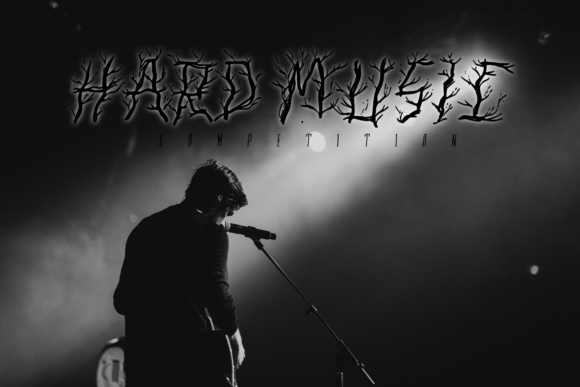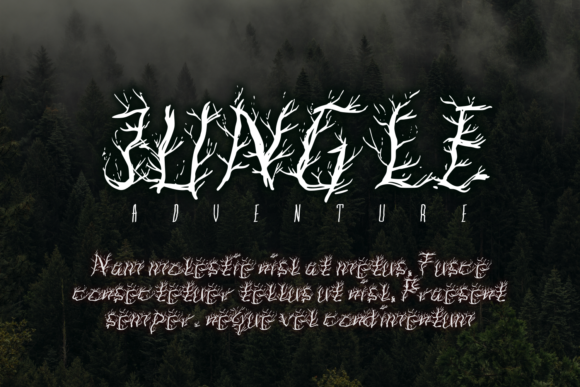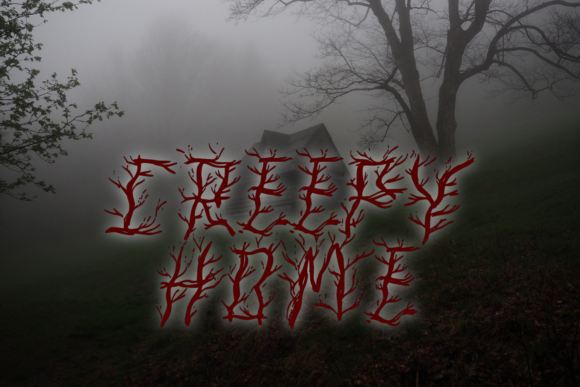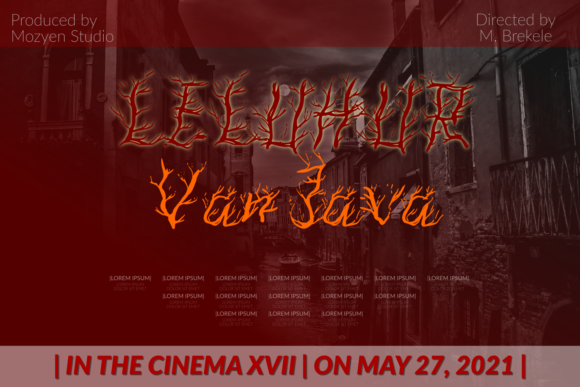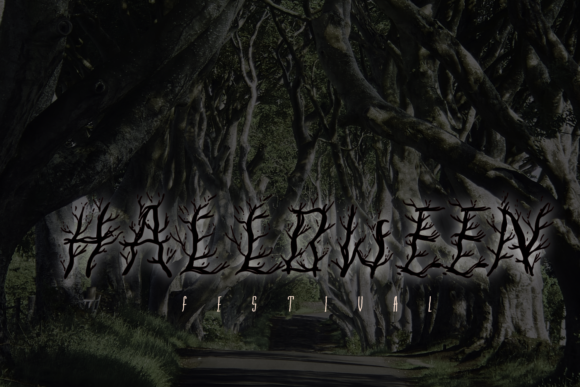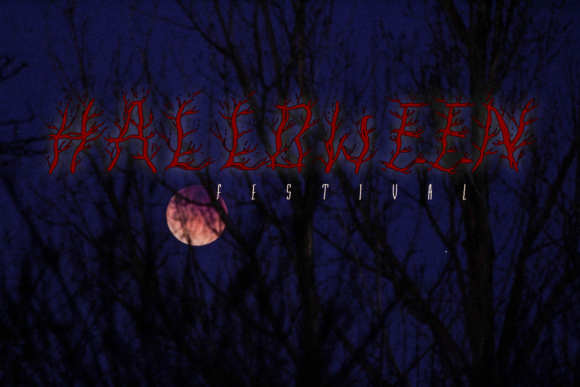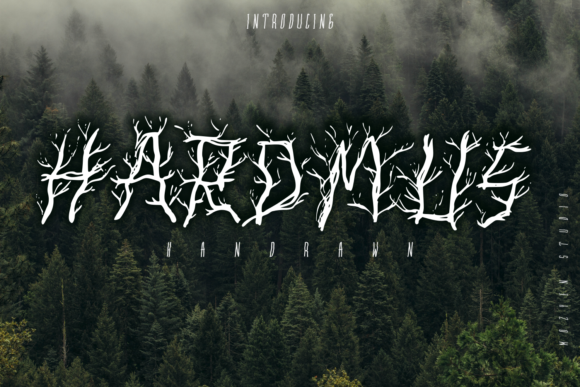
Introducing Hardmus Font: Unleash Your Creativity with this Aggressive Display Font
Are you tired of using the same old fonts for your designs? Look no further! Hardmus Font is here to revolutionize your creative projects with its unique, brushed, and aggressive style. This cool display font is perfect for designers and crafters who want to add a touch of edginess to their work. In this article, we’ll dive into the features and benefits of Hardmus Font, and explore its endless possibilities for your designs.
What is Hardmus Font?
Hardmus Font is a display font designed to make a statement. Its brushed and aggressive texture gives it a raw, unfinished look that’s perfect for creating bold and eye-catching designs. Whether you’re working on a poster, flyer, or print project, Hardmus Font is sure to grab attention and leave a lasting impression.
Key Features of Hardmus Font
- Unique Brushed Texture: Hardmus Font features a distinctive brushed texture that adds a touch of grit and attitude to your designs.
- Aggressive Style: This font is not for the faint of heart! Its aggressive style is perfect for designers who want to create bold and daring designs.
- High-Quality Design: Hardmus Font is designed with precision and attention to detail, ensuring that it looks stunning in any design.
- Versatile: Whether you’re working on a poster, flyer, or print project, Hardmus Font is versatile enough to adapt to any design style.
Benefits of Using Hardmus Font
So, why should you choose Hardmus Font for your designs? Here are just a few benefits of using this amazing font:
- Adds Edginess to Your Designs: Hardmus Font is perfect for designers who want to add a touch of edginess to their work.
- Grabs Attention: The bold and aggressive style of Hardmus Font is sure to grab attention and leave a lasting impression.
- Increases Creativity: With Hardmus Font, you’ll have endless possibilities for your designs. Experiment with different styles, colors, and textures to create something truly unique.
Endless Possibilities with Hardmus Font
So, what can you create with Hardmus Font? The possibilities are endless! Here are a few ideas to get you started:
- Posters and Flyers: Use Hardmus Font to create bold and eye-catching posters and flyers that grab attention.
- Print Projects: Add a touch of edginess to your print projects, such as brochures, business cards, and packaging.
- Logos and Branding: Use Hardmus Font to create a bold and memorable logo or brand identity.
- Social Media Graphics: Create stunning social media graphics that stand out from the crowd with Hardmus Font.
In conclusion, Hardmus Font is a game-changer for designers and crafters who want to add a touch of edginess to their work. With its unique brushed texture and aggressive style, this font is perfect for creating bold and eye-catching designs. Whether you’re working on a poster, flyer, or print project, Hardmus Font is sure to unleash your creativity and take your designs to the next level. So, what are you waiting for? Download Hardmus Font today and explore its endless possibilities!